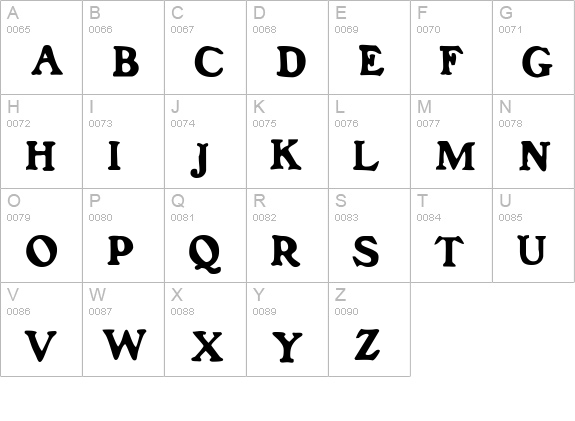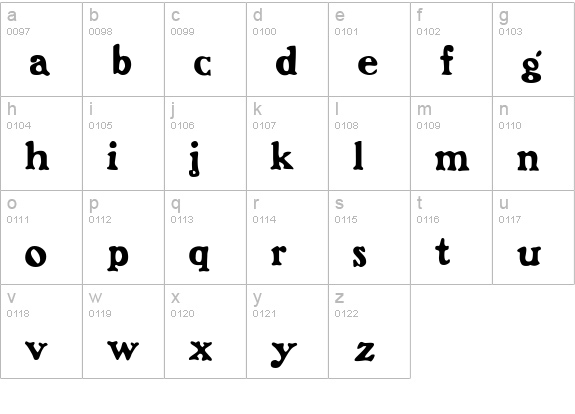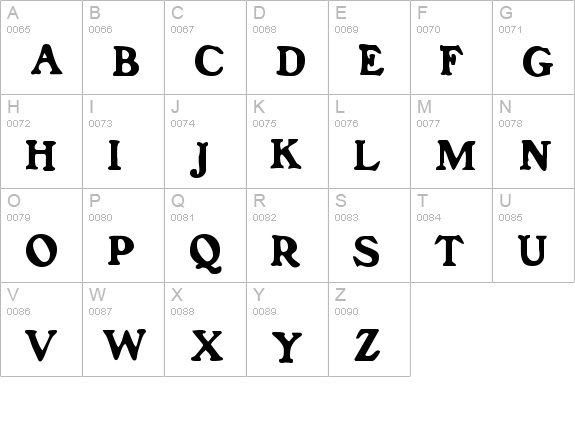
FrankenFont Font Details
Introducing FrankenFont, a bold and distinctive typeface that combines classic elegance with a touch of modern flair. This versatile font is perfect for a wide range of design projects, from logos and branding to posters and invitations. With its unique character and eye-catching appeal, FrankenFont is sure to make your designs stand out from the crowd. Best of all, FrankenFont is available for free download at FontsMarket.com. That's right, you can get your hands on this stylish font without spending a dime. So why wait? Add a touch of sophistication to your projects with FrankenFont today!